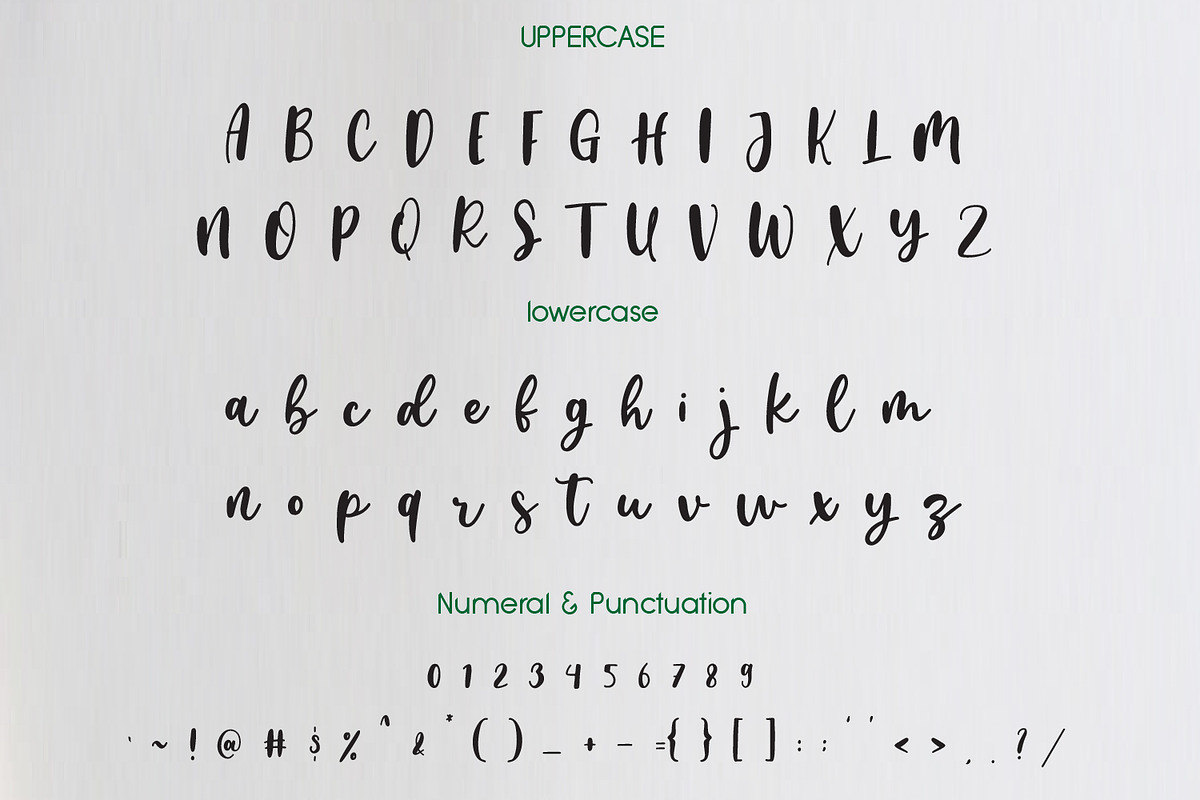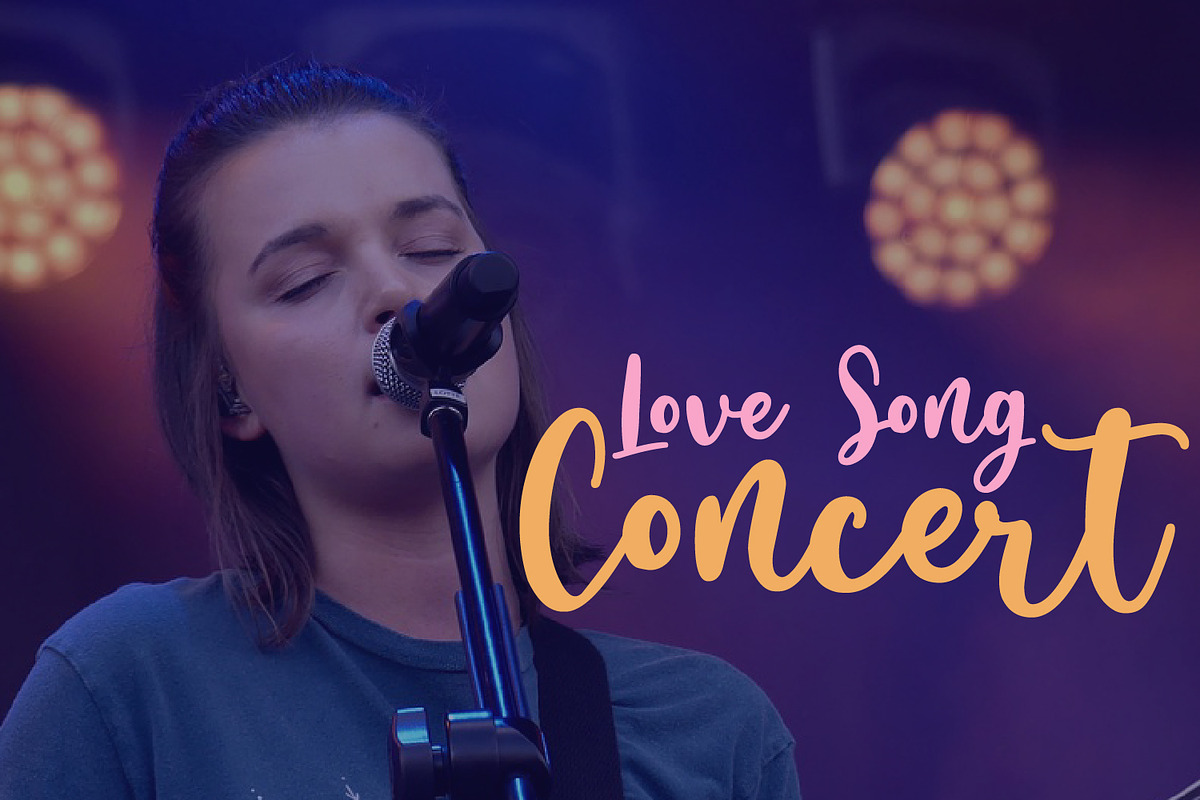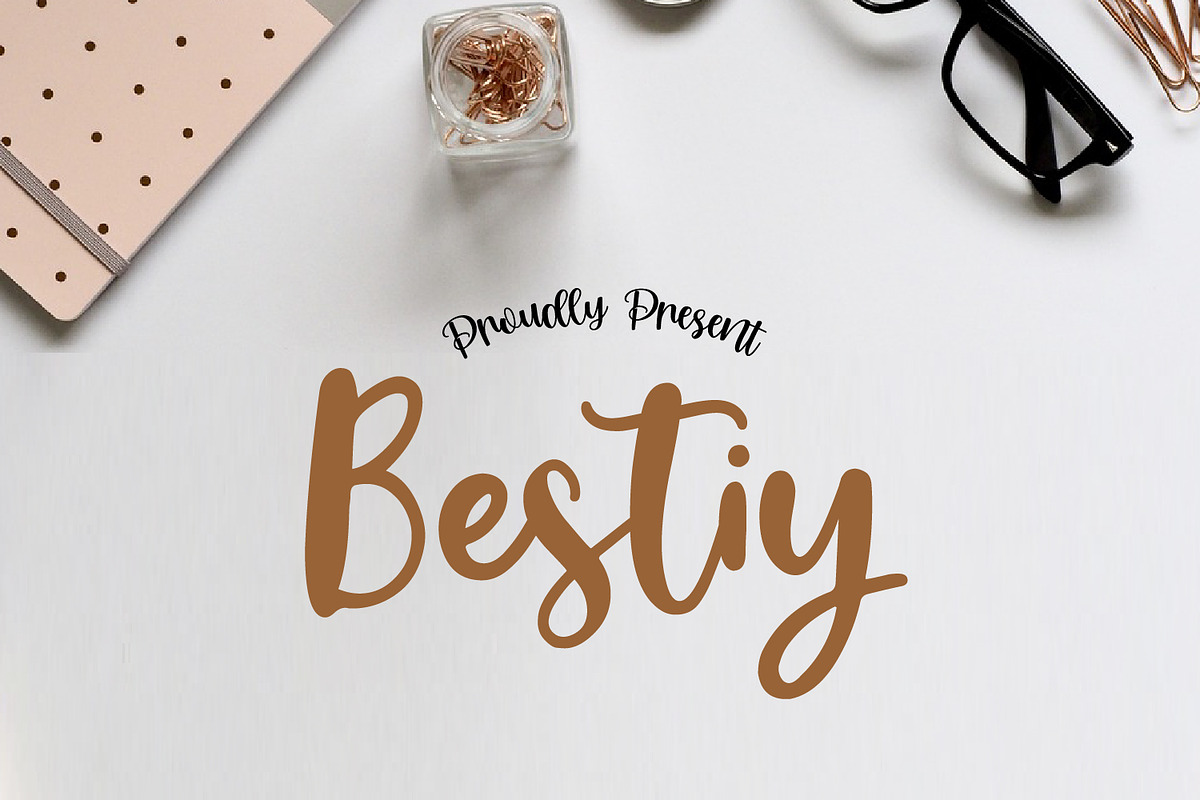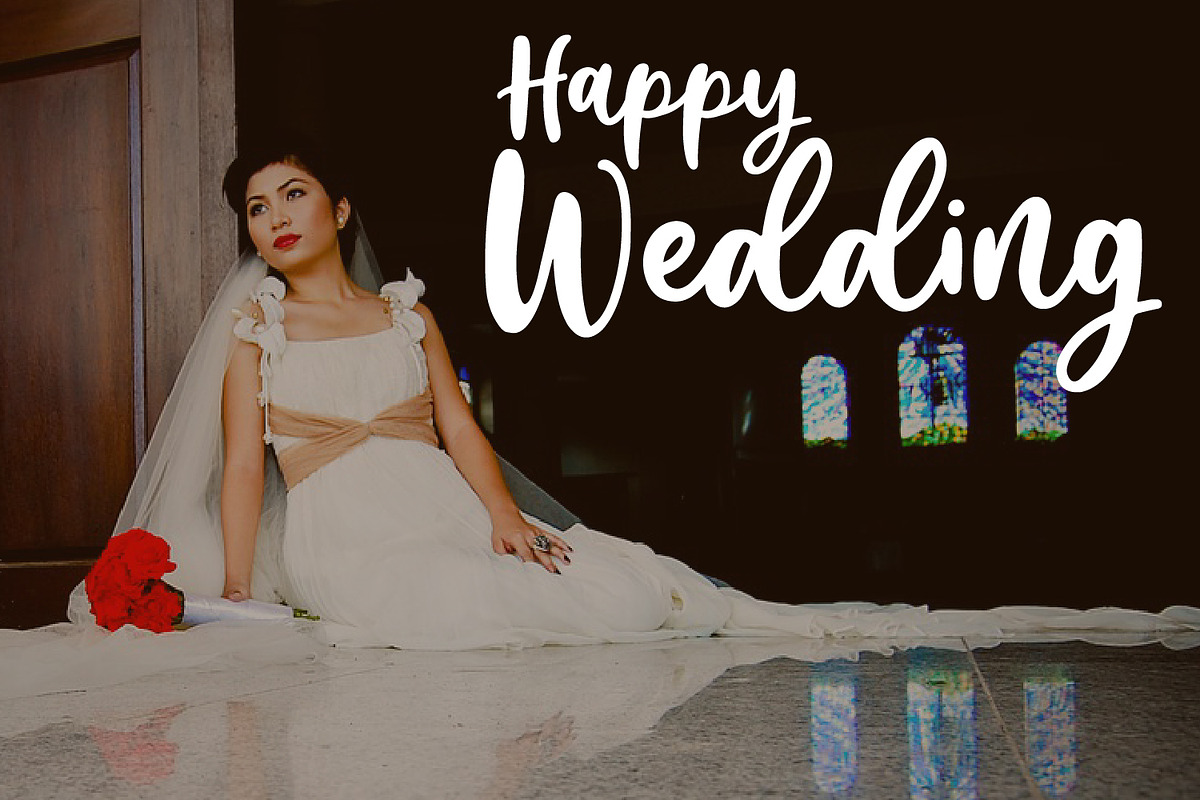
Bestiy Script
Bestiy is a lovely and timeless handwritten font. It is the best choice for creating eye catching branding and quotes. Every letter has a unique and beautiful touch, which will make your design come alive!